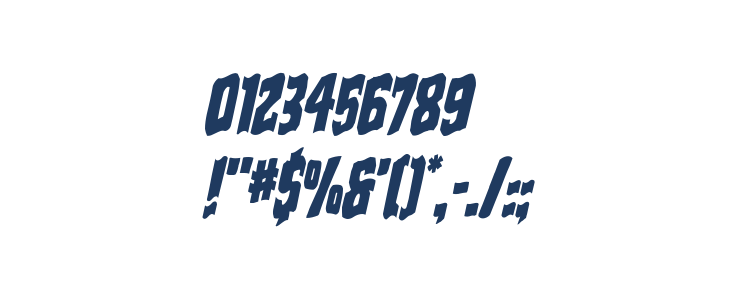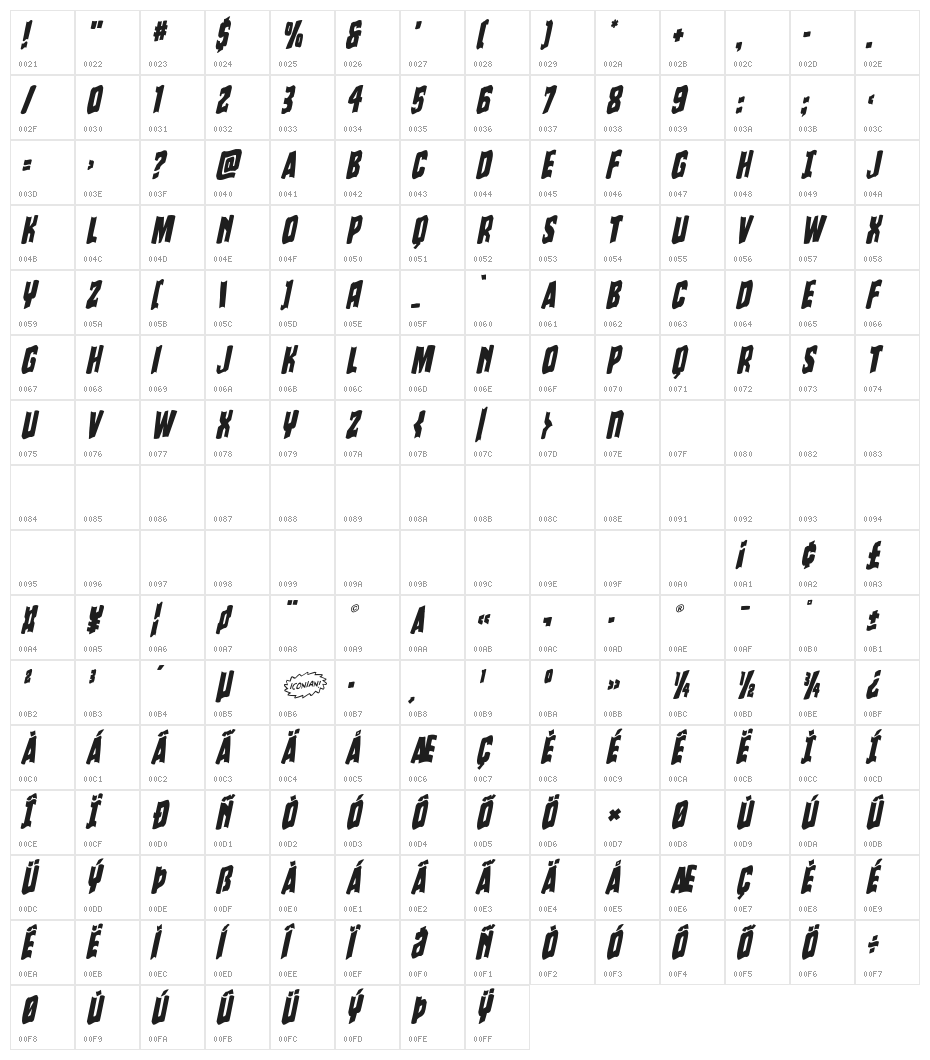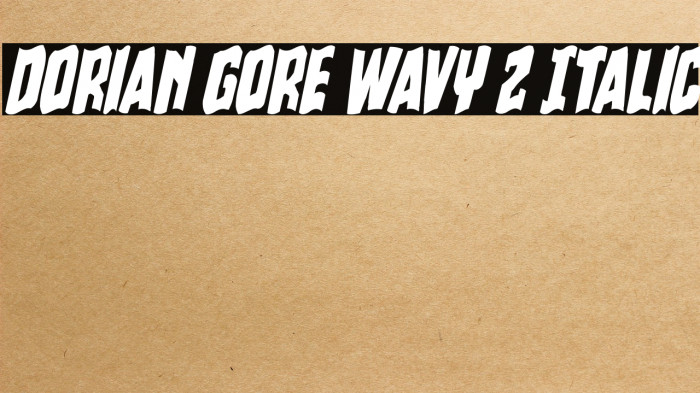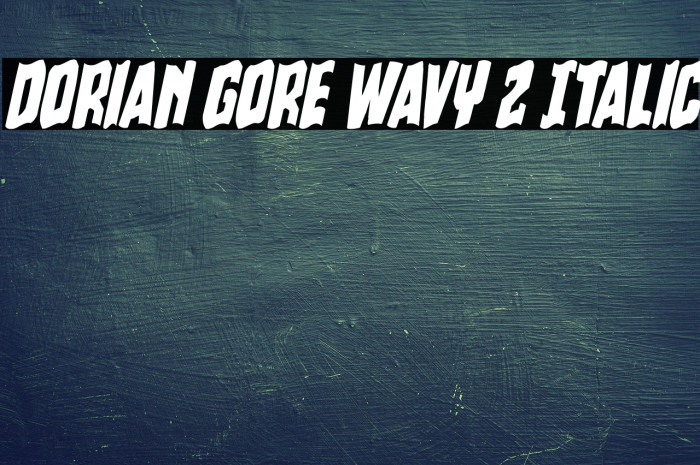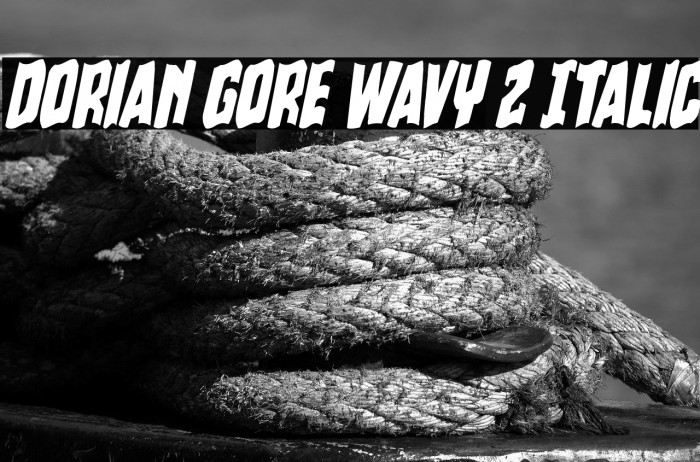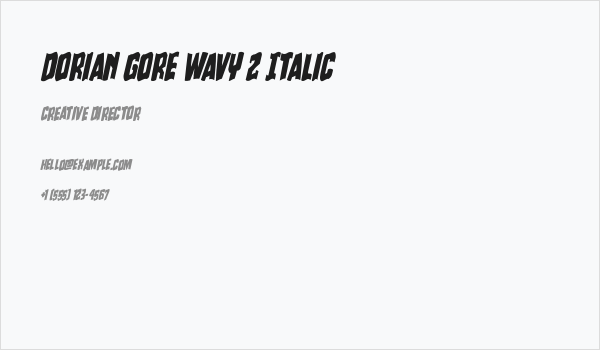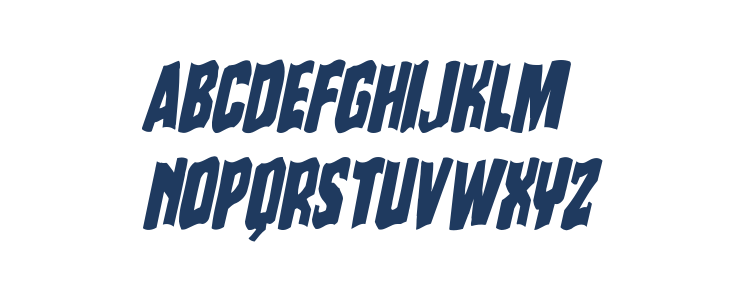
Dorian Gore Wavy 2 Italic Font
Dorian Gore Wavy 2 Italic Description
This font features a bold and dynamic style with a wavy, italicized appearance. The characters are thick and slightly slanted, giving a sense of movement and energy. The uppercase and lowercase letters maintain a consistent style, with sharp edges and a playful, almost rebellious look. The numbers and special characters follow the same design principles, ensuring uniformity across the font. Its unique design makes it stand out, suitable for projects that require a bold statement.